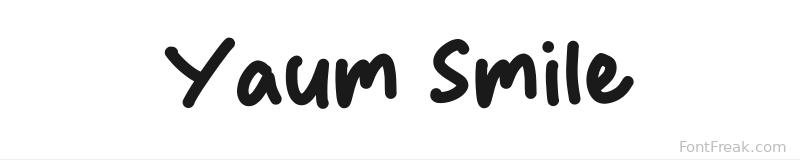
Yaum Smile
Introducing the Yaum Smile font by MJType, a delightful display typeface that brings a touch of whimsy and charm to any design project. As a handcrafted script font, Yaum Smile features smooth, flowing lines that evoke a sense of warmth and friendliness. Its playful character set is accentuated by a medium stroke weight and minimal contrast, making it easy to read while maintaining a lively spirit. The spacing between characters is thoughtfully designed to enhance legibility, making this font a versatile choice for a variety of applications.
Yaum Smile is perfect for wedding invitations, where its joyful aesthetic can help convey the happiness of the occasion. It also works well for children's book covers, adding an inviting and playful touch that appeals to young readers. Additionally, this font is an excellent fit for restaurant menus, especially those with a casual dining atmosphere, as it can create an inviting and approachable vibe. Graphic designers will appreciate its versatility in branding projects, where a friendly and approachable image is desired.
What sets the Yaum Smile font apart is its ability to blend fun with functionality. Its unique style not only enhances visual appeal but also communicates emotion effectively. For those seeking a font that stands out while remaining versatile, the Yaum Smile font free download is an exceptional choice that can elevate any creative endeavor.